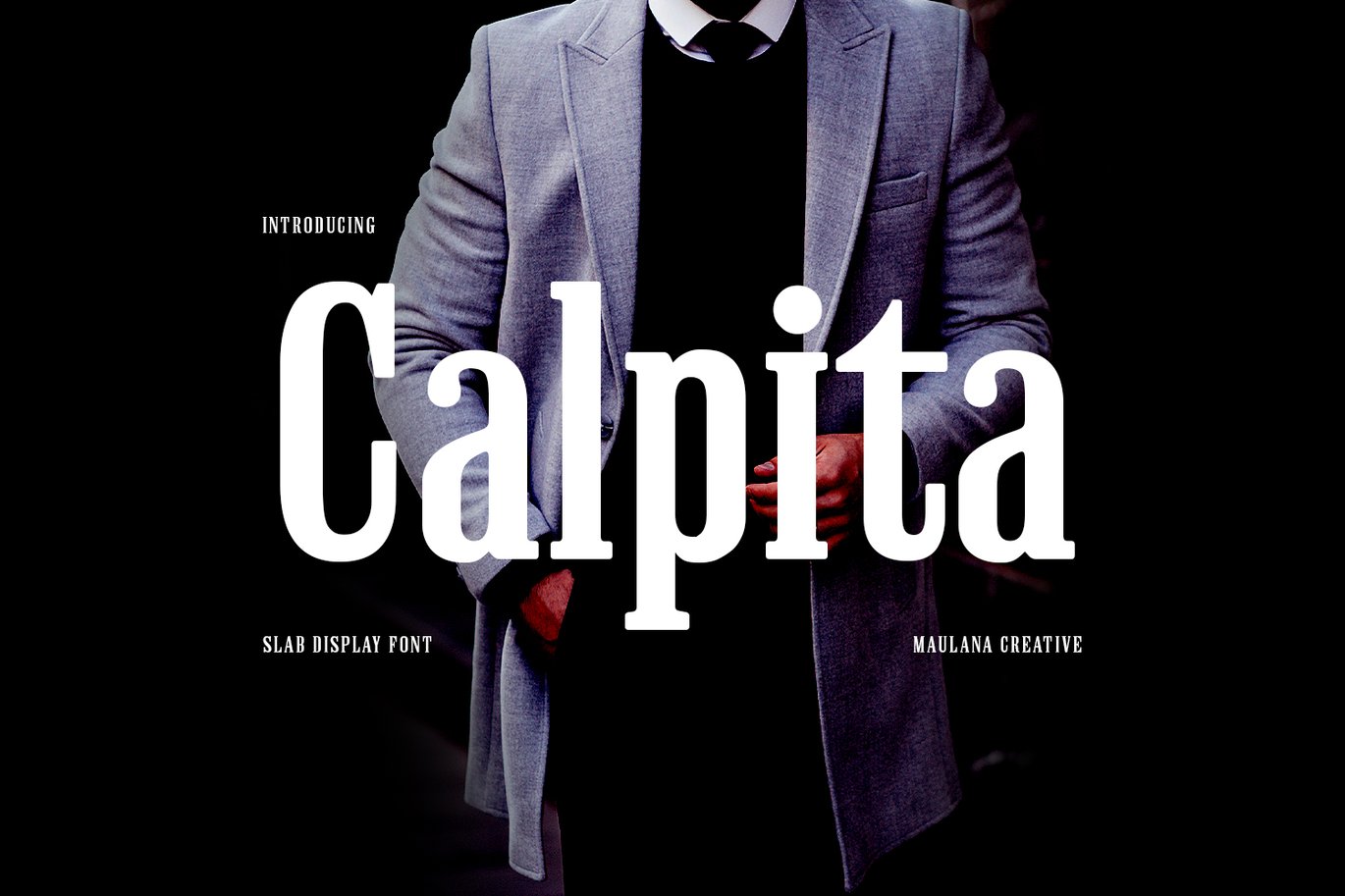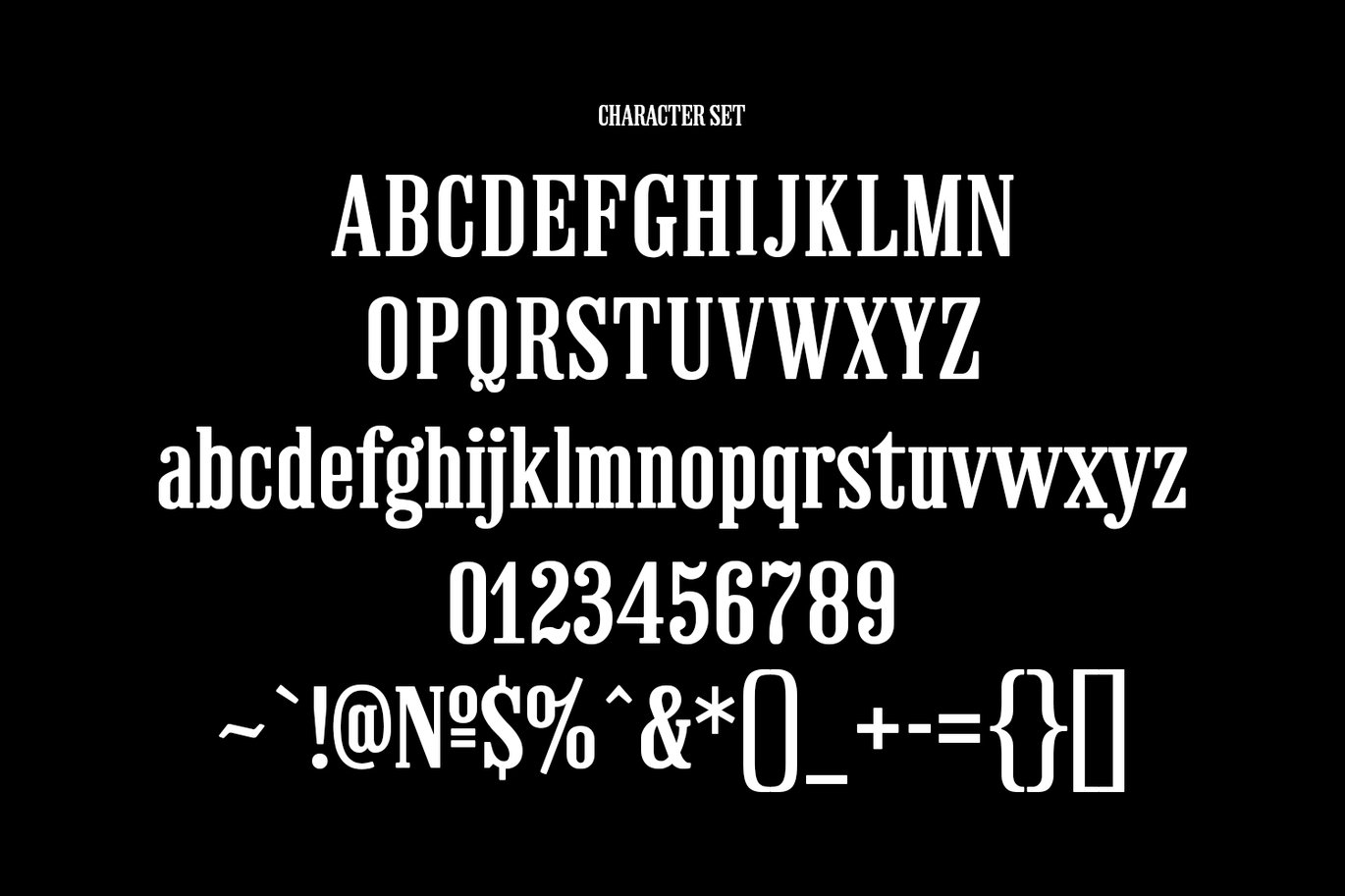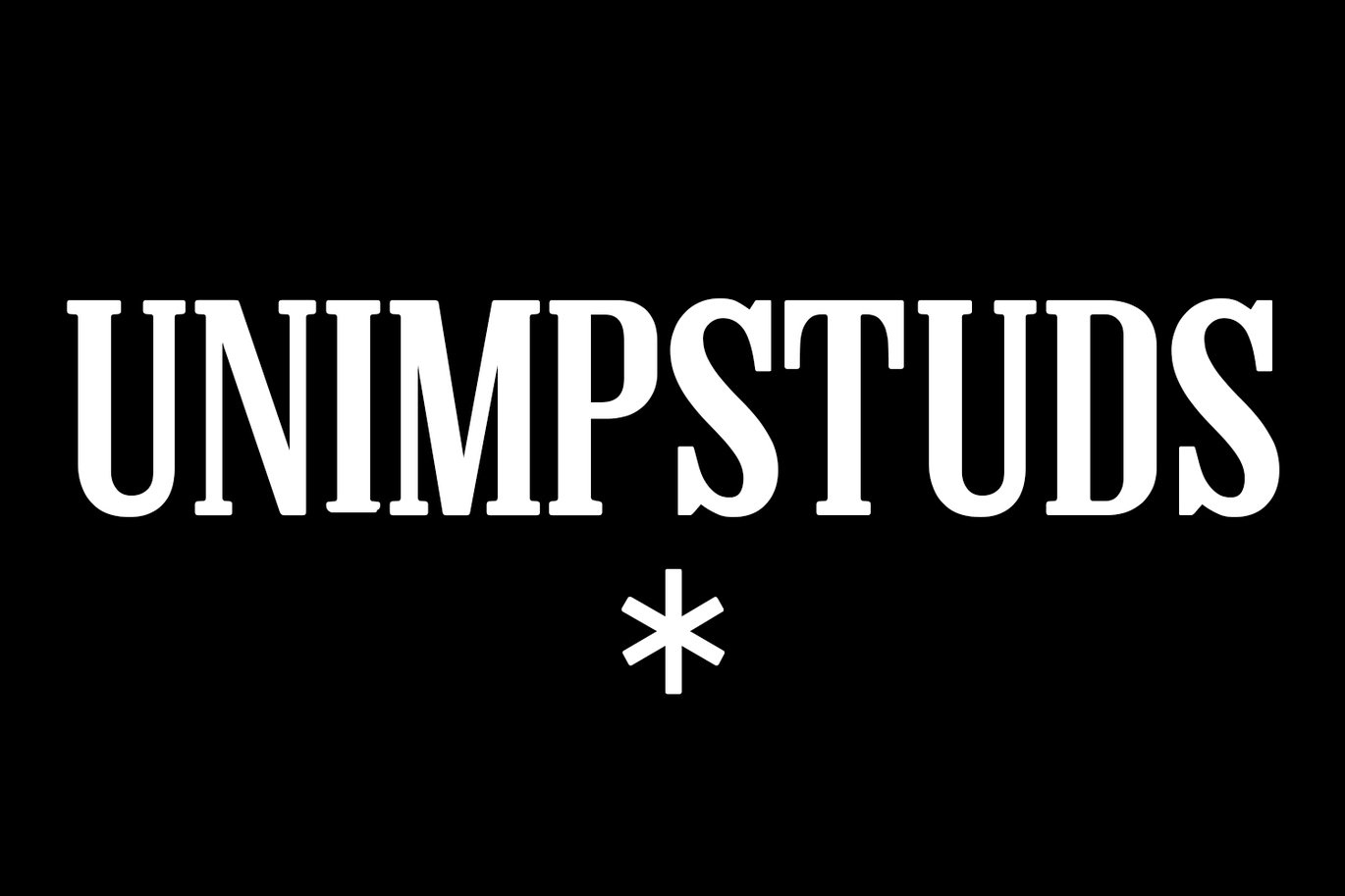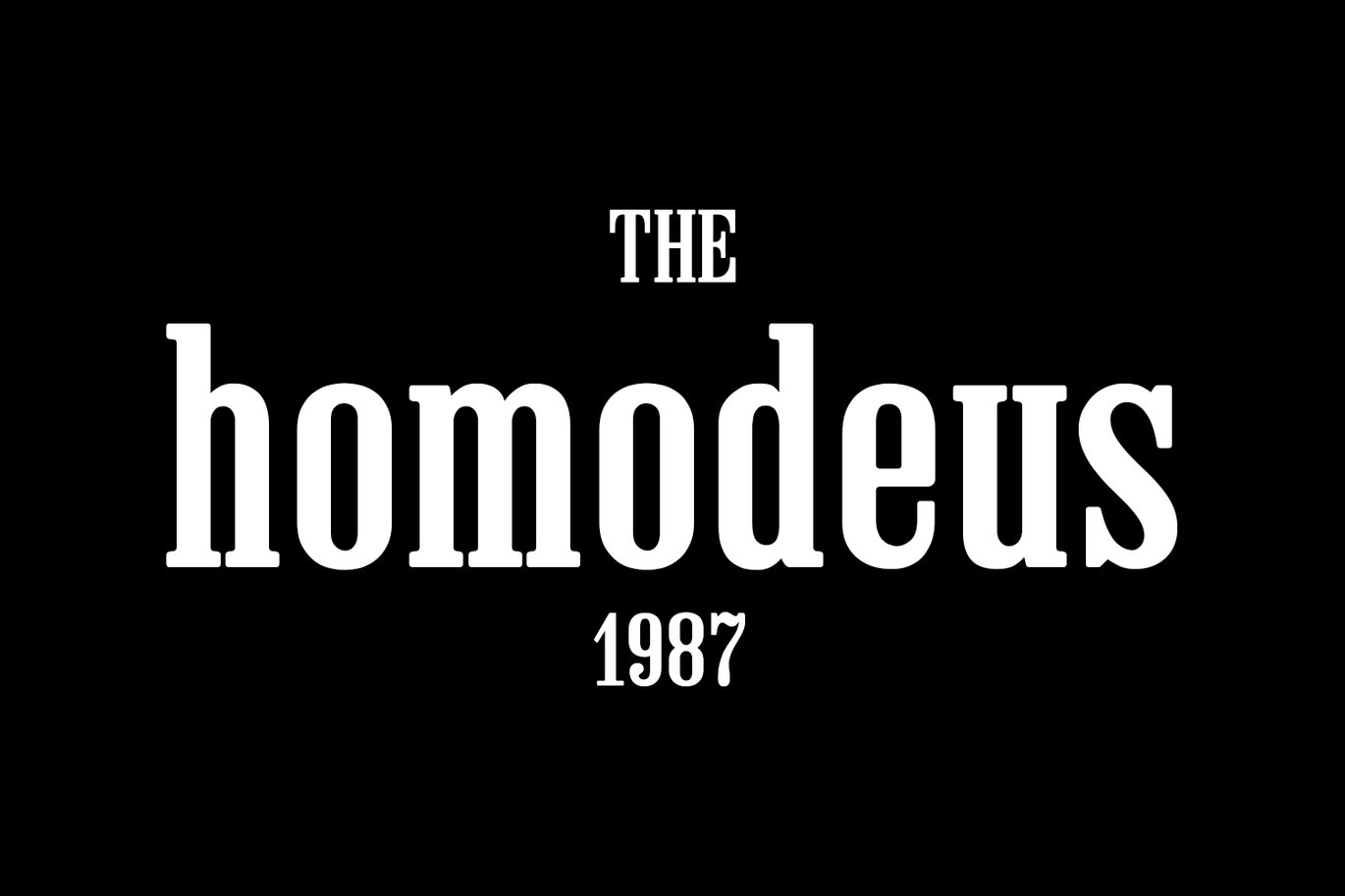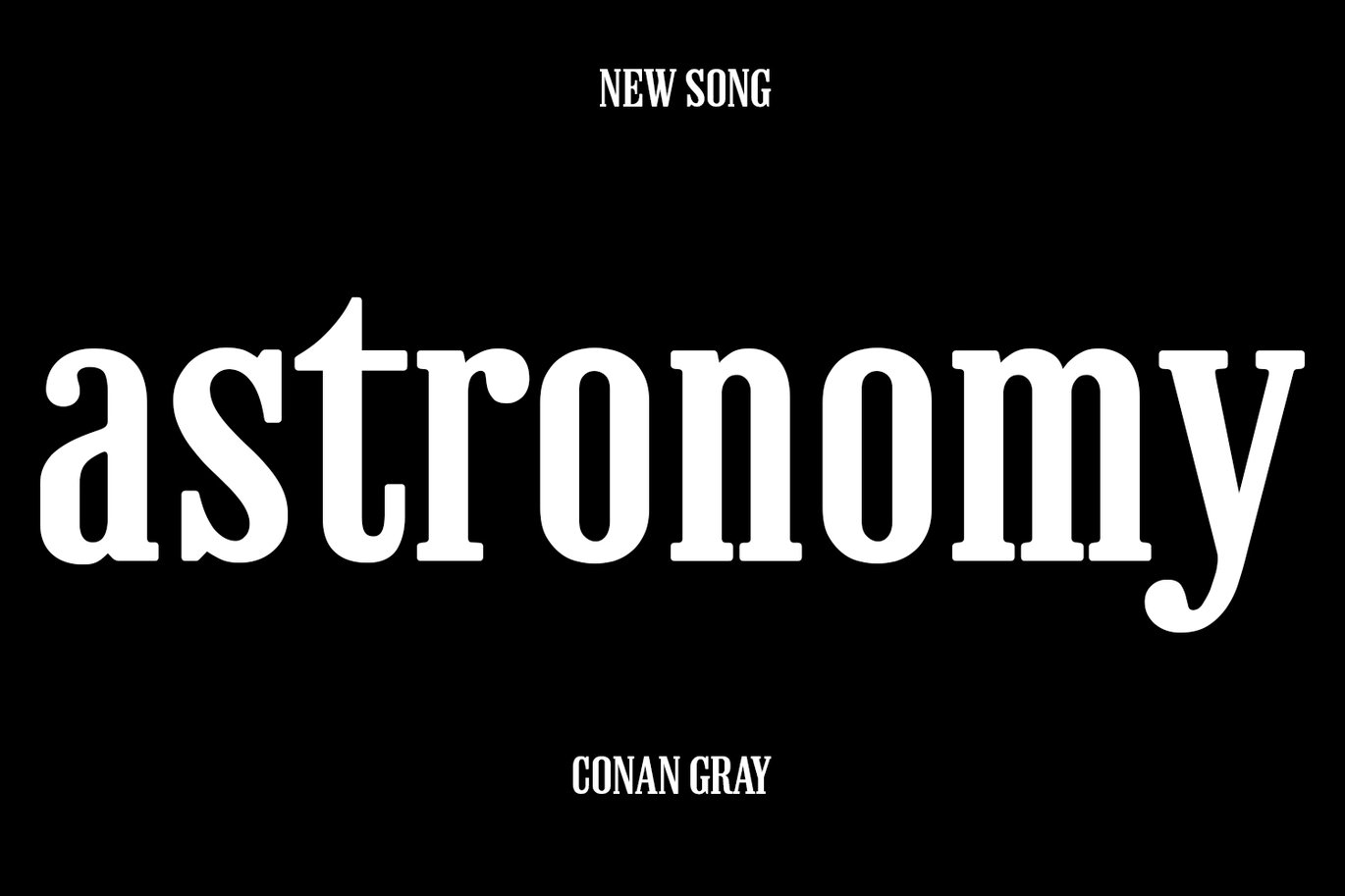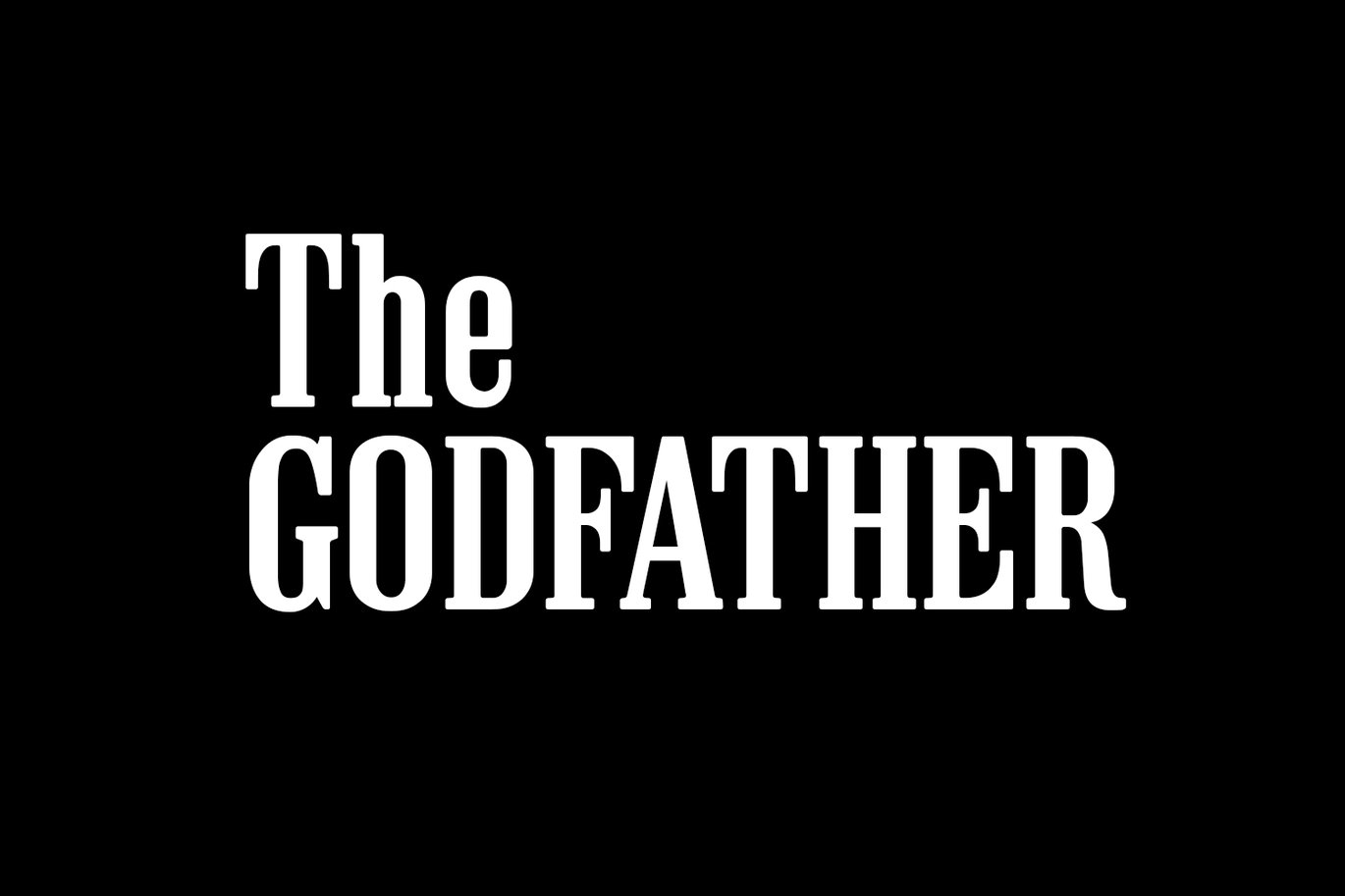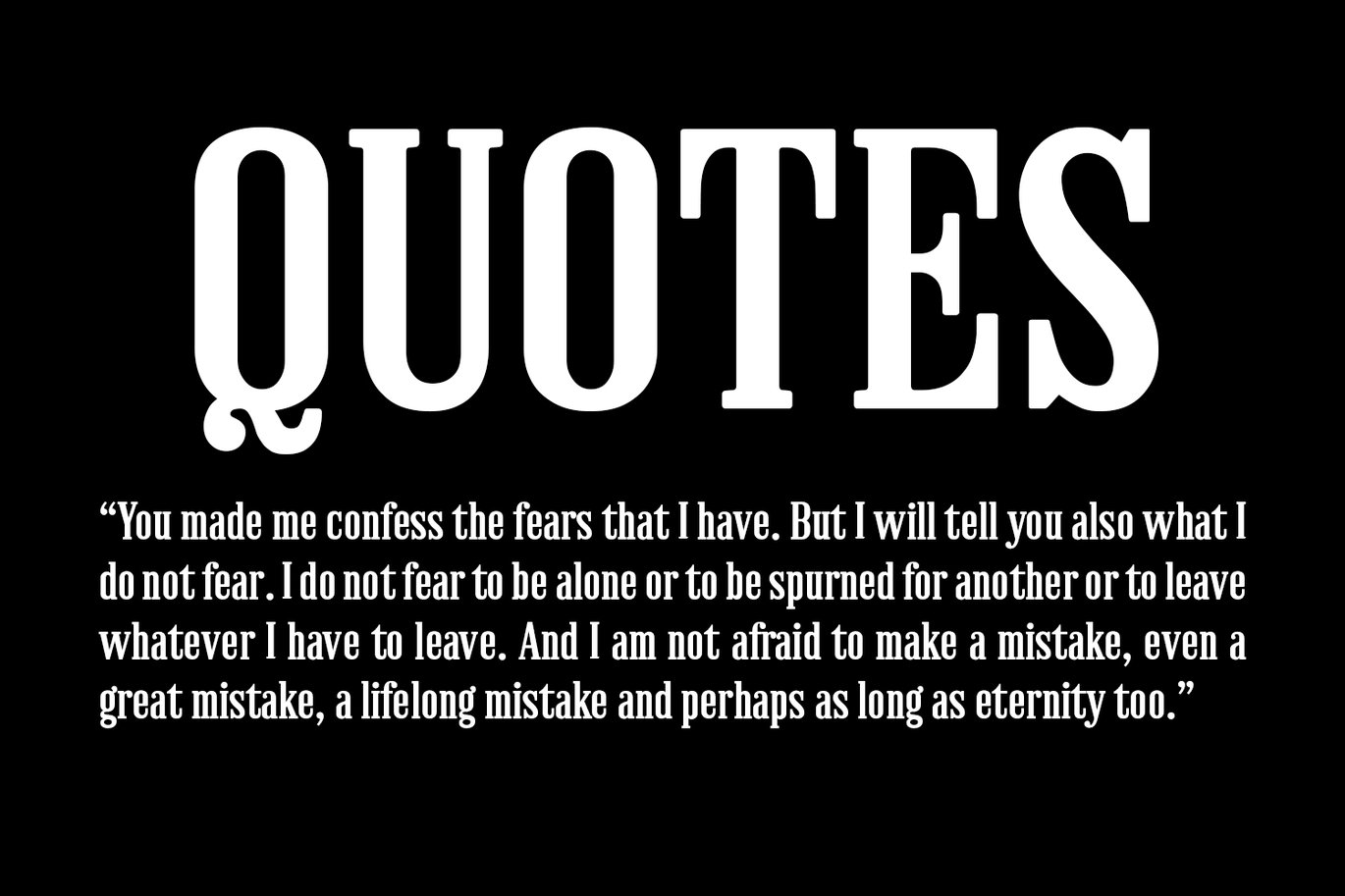
Calpita Serif Font
Calpita is a classic inspired by historical 50s serif font. Bold stroke, fun character with a bit of ligatures and alternates. To give you an extra creative work. Calpita font support multilingual more than 100+ language. This font is good for logo design, Social media, Movie Titles, Books Titles, a short text even a long text letter and good for your secondary text font with script or serif. Make a stunning work with Calpita font.